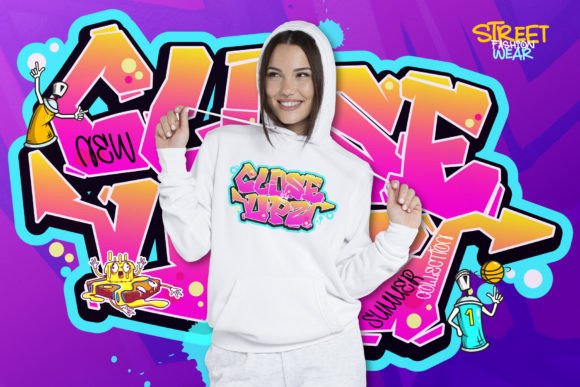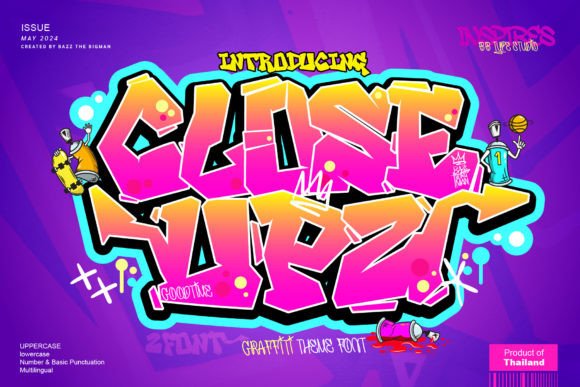
Close Upz Font: Bold Graffiti Display Font for Creative Designs
About the Close Upz Font
Discover the charm of Close Upz Font. This font is a perfect blend of modern aesthetics and classic appeal. Immerse yourself in artistic expression with Close Upz, a remarkably extraordinary graffiti display font. Delicately refined to captivate your imagination, this font elevates your artistic concepts to unparalleled heights. Unleash the limitless potential of Close Upz, transforming every creative spark into a radiant masterpiece!
Close Upz thrives in headline applications, short impactful statements, and branding elements where a bold, rebellious energy is desired. Its unique character is ideal for posters, packaging for edgy products, and streetwear designs. However, its highly stylized nature makes it unsuitable for body text or UI elements requiring high readability.
Consider pairing Close Upz with a clean sans-serif like Futura or a geometric sans-serif like Aktiv Grotesk for a balanced contrast. For a more playful feel, a rounded sans-serif such as Poppins could work well. Avoid pairing it with overly ornate or decorative fonts; the contrast might clash.
Close Upz projects a bold, street-art inspired personality. It’s perfect for brands targeting a young, urban audience or projects needing a strong, attention-grabbing visual impact.
Close Upz Font Usage Examples
Close Upz Font Example